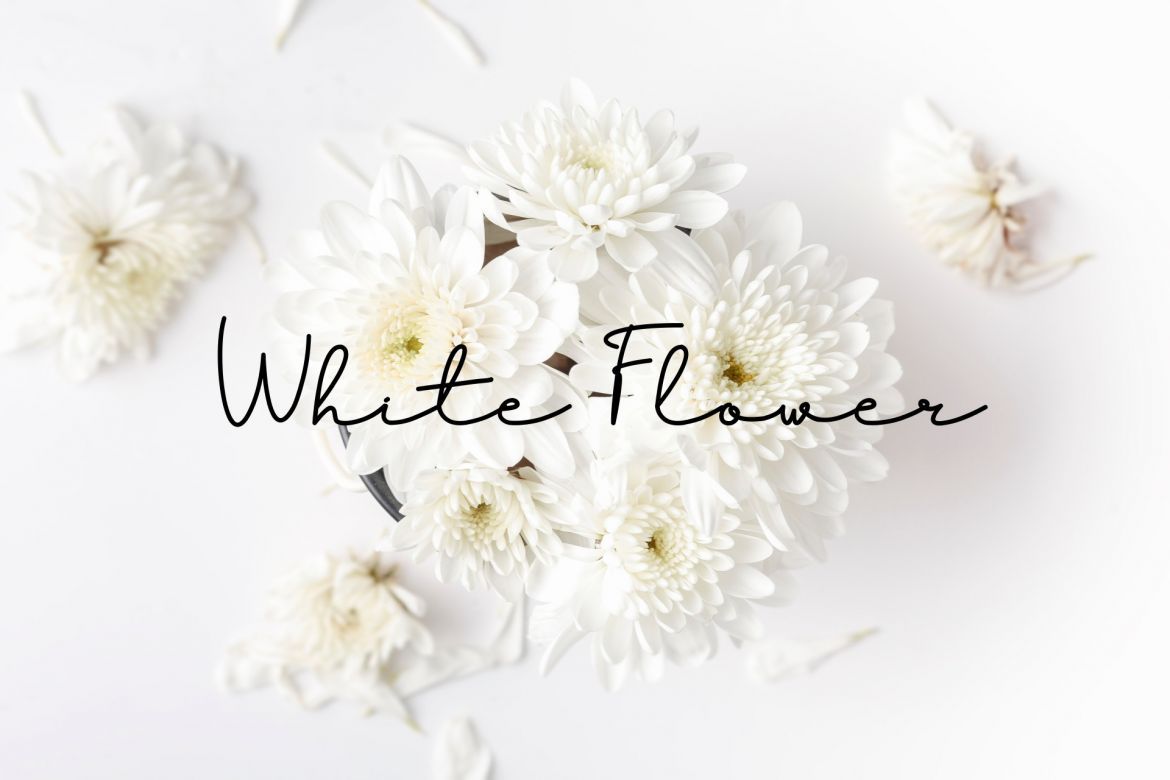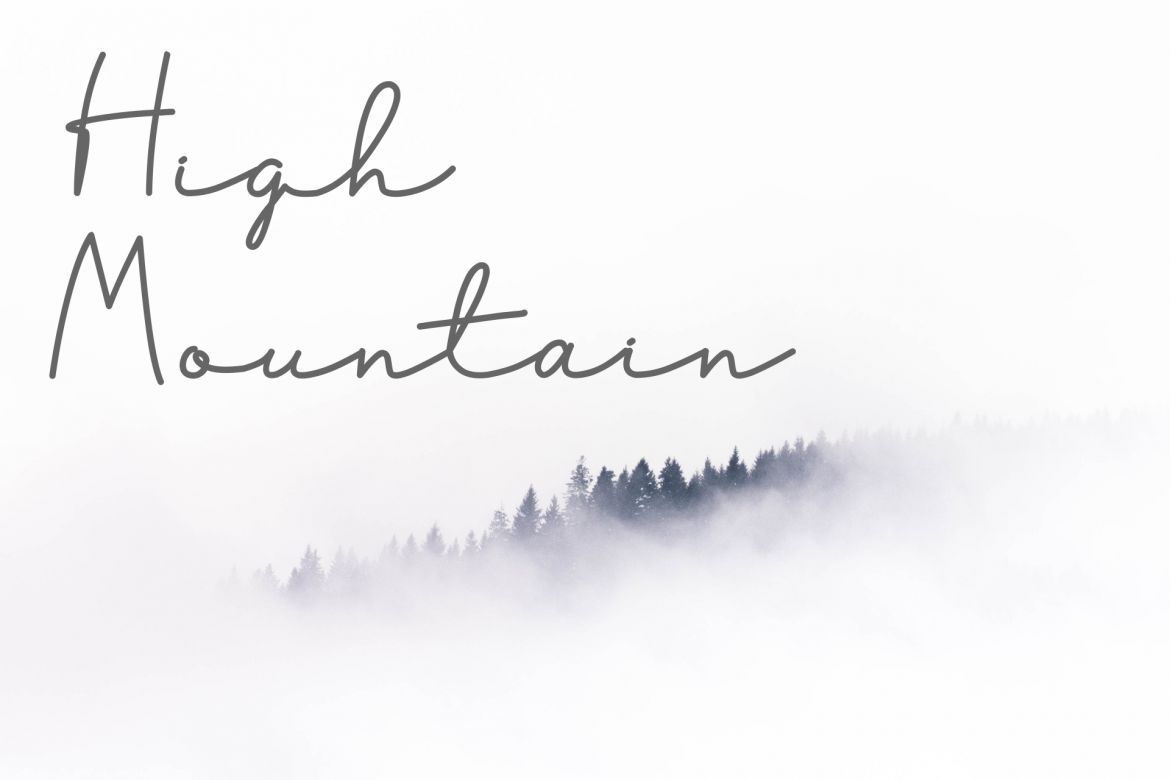
Fuzzybrand Font
Fuzzybrand is a cool and casual handwritten font with a warm feel. Introducing Fuzzybrand Font with a classy and natural handwritten style, it brings a classy and chic typeface.
• fuzzybrand contain lowercase,uppercase, numbers and punctuation.